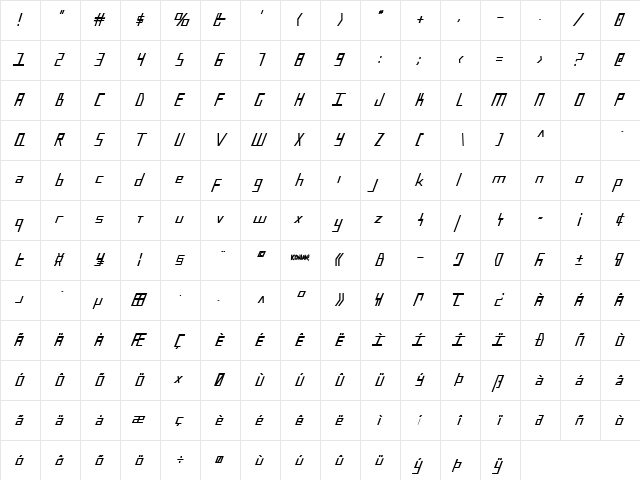
Blue July Bold Condensed Bold Condensed
Design Context for Blue July Bold Condensed Typeface
Blue July Bold Condensed is a composed and adaptable typeface that performs quietly and consistently across a wide range of design contexts. Its bold stroke weight gives it real presence on the page. The condensed width makes it efficient for tight spaces without sacrificing legibility.